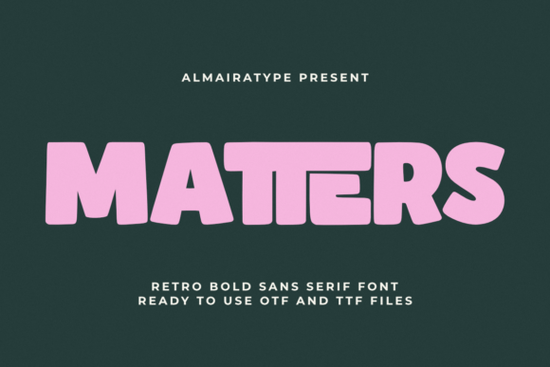
Looking for a bold retro sans serif font that feels both vintage and modern? The Matters Font is a thick, friendly typeface inspired by 70s design but built for today's creative projects. It's designed with clean vector outlines, making it a practical pick for graphic designers, small business owners, and anyone working with craft cutting machines. Whether you're making t-shirts, stickers, or social media graphics, this font delivers strong readability with a warm, nostalgic personality.
Matters stands out because it doesn't force you to choose between a retro look and a clean, professional finish. The thick letterforms and rounded edges give it a friendly feel, while the structured geometry keeps everything balanced and easy to read at any size.
What Makes This Font Feel Retro Without Looking Dated?
A lot of retro fonts go too far into novelty territory. They look fun on a poster but fall apart on product packaging or a brand logo. Matters takes a different approach. It borrows the warmth of 70s-era typography think bold curves and generous letter spacing but keeps the lines clean enough for modern commercial use.
The result is a typeface that feels nostalgic without being kitschy. It pairs well with both minimalist layouts and busier, more colorful designs. If you've worked with fonts like Campus, you'll notice a similar energy in Matters, though Matters leans slightly more playful with its rounded contours.
Who Is the Matters Font Built For?
This font works well across a range of creative fields. Here's who tends to get the most out of it:
- Print on Demand sellers who need bold, readable typography for t-shirts, hoodies, and mugs
- Clothing brand owners building a streetwear or casual lifestyle identity
- Graphic designers working on packaging, posters, or brand guidelines
- Crafters and hobbyists making stickers, decals, and home décor with Cricut or Silhouette machines
- Social media managers creating scroll-stopping posts and story graphics
If you're building a brand kit or expanding your font library for client work, Matters fills a specific gap the need for something bold and expressive that doesn't sacrifice legibility. It sits comfortably alongside other popular sans serif options like Aesthetic Things for more delicate projects, while Matters handles the heavy lifting when you need impact.
Where Can You Actually Use This Font?
Here are some practical ways designers and sellers are putting bold retro typefaces like Matters to work:
- T-shirt designs bold enough to read from a distance, stylish enough to sell
- Logo and branding works for casual, lifestyle, and food brands that want personality
- Packaging layouts adds warmth and character to product labels and boxes
- Social media graphics strong headline font for Instagram posts, pins, and ads
- Stickers and decals clean cuts with minimal weeding issues
- Event posters and flyers grabs attention without looking cluttered
If you also enjoy working with playful display fonts, Bright Sparkle offers a different vibe more whimsical and light that can complement the bolder weight of Matters in a multi-font design system.
How Does It Compare to Other Bold Sans Serifs?
There's no shortage of retro-inspired fonts available, so how does Matters hold up? Compared to more condensed options, Matters gives you a wider, more generous letterform. That makes it especially useful for large headlines and merch designs where you want the text to feel substantial.
It's also worth noting that the character set is well-developed, supporting multiple languages and including standard punctuation and symbols. This matters (no pun intended) if you're selling internationally or working with clients who need multilingual support.